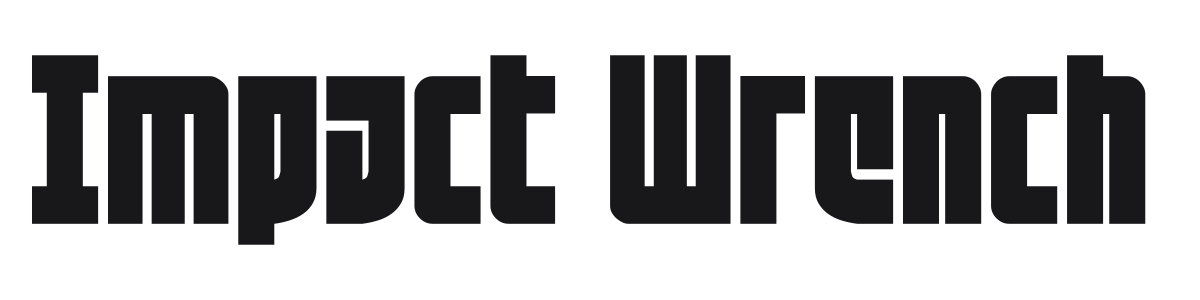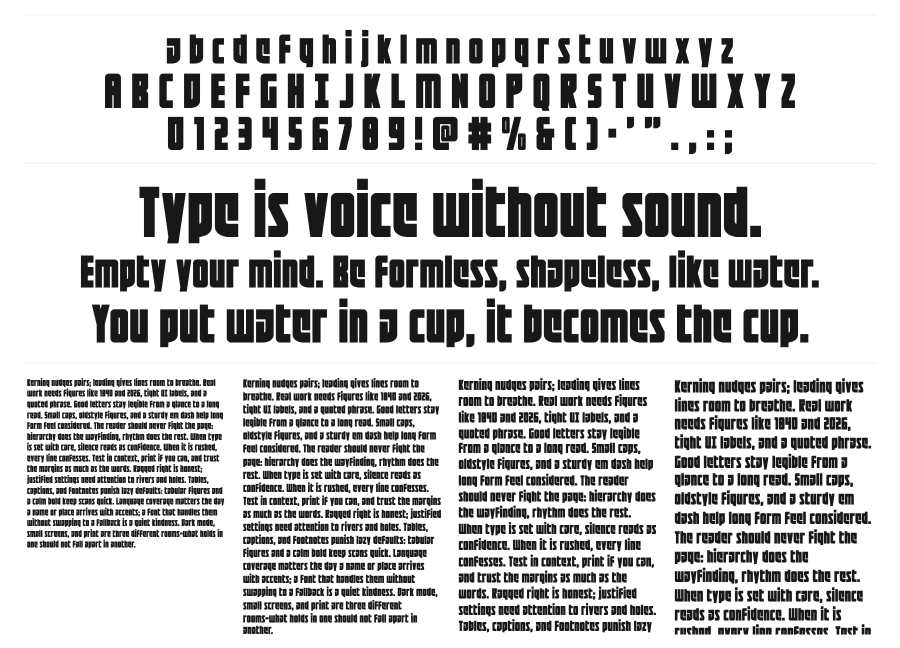
Impact Wrench
Impact Wrench is a heavy ultra-condensed display sans with angular notch details that give it a distinctly mechanical, garage-workshop edge. The compressed proportions and flat terminals draw on 1970s action and grindhouse aesthetics, landing somewhere between a movie title and a tool chest. It punches hard at large sizes and suits anything that needs to feel fast, loud, or built from steel.